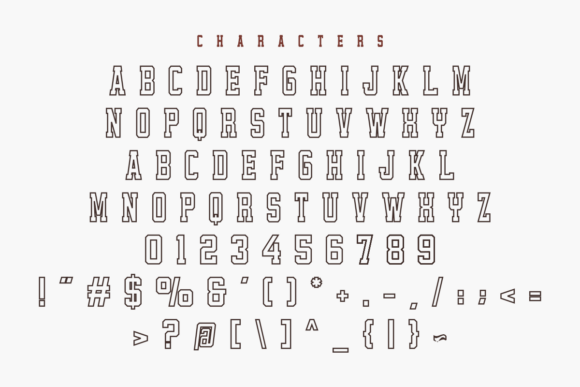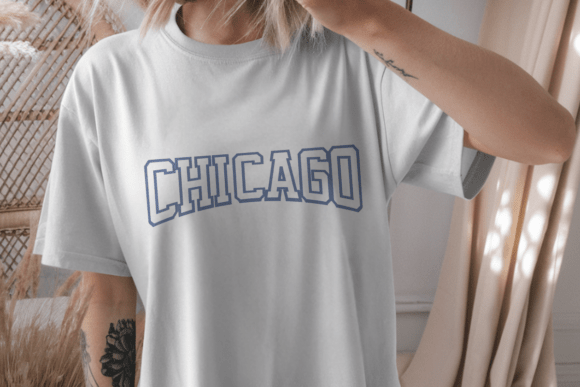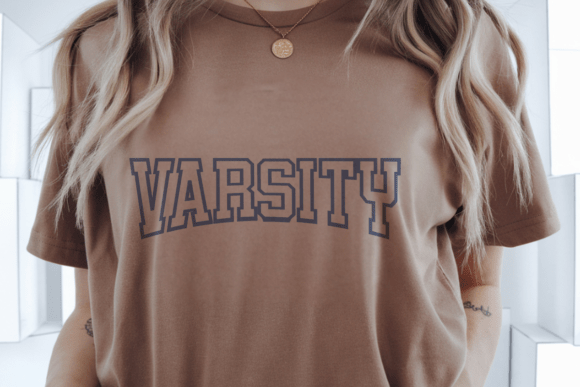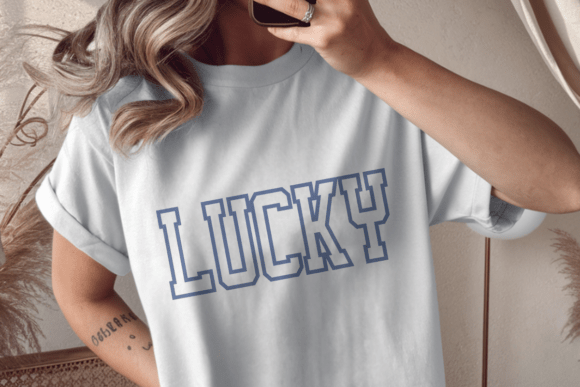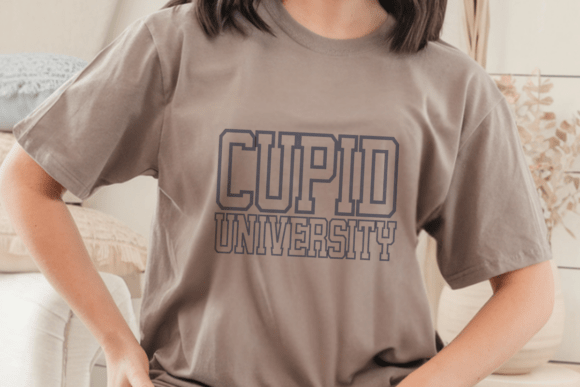
Athletic College Outline Font: Elevate Your Designs with a Classic Varsity Aesthetic
In the world of graphic design, typography plays a crucial role in conveying the tone and style of a project. For designers and crafters looking to infuse their work with a classic varsity spirit, the Athletic College Outline Font is an exceptional choice. This bold and powerful collegiate display font is specifically designed to bring a timeless university sports aesthetic to modern creative projects.
What is Athletic College Outline Font?
Athletic College Outline Font is a sturdy, blocky typeface with a clean and precise outline style. Its design is inspired by the classic varsity fonts commonly seen in university sports and team spirit wear. The font’s bold structure and clear lines make it perfect for creating high-impact designs that command attention.
Key Features of Athletic College Outline Font
- Bold and Powerful Design: Athletic College Outline Font boasts a robust and commanding presence, making it ideal for creating statement pieces in graphic design and print on demand projects.
- Classic Varsity Aesthetic: The font’s design is deeply rooted in the classic varsity style, evoking memories of university sports and team spirit.
- Outline Style: The outline style of the font adds a layer of versatility, allowing it to be used in various creative projects, from t-shirt designs to vinyl cutting.
- High Readability: The clean lines and blocky structure of Athletic College Outline Font ensure excellent readability, even on digital screens.
- Versatility: This font is not limited to fashion and apparel design; it’s also perfect for craft projects, such as vinyl cutting with Cricut or Silhouette, personalized gift tags, and school event posters.
Perfect for Graphic Designers and Print on Demand Merchants
Athletic College Outline Font is an invaluable asset for graphic designers and print on demand merchants specializing in custom apparel. Its classic varsity style and bold design make it an excellent choice for creating:
- T-Shirt Designs: Stand out with high-impact t-shirt designs that capture the spirit of university sports.
- Varsity Jackets: Bring a touch of classic varsity style to custom varsity jackets and apparel.
- Sports Jerseys: Design authentic-looking sports jerseys with a font that echoes the spirit of professional and collegiate sports.
- Spirit Wear: Create a range of spirit wear, from hoodies to hats, with a font that embodies team spirit and school pride.
Beyond Fashion: Versatility in Craft Projects
The versatility of Athletic College Outline Font extends beyond fashion and apparel design. Crafters and DIY enthusiasts can leverage this font in various projects, including:
- Vinyl Cutting: Use Athletic College Outline Font for vinyl cutting projects with Cricut or Silhouette, creating custom decals, stickers, and signs.
- Personalized Gift Tags: Add a personal touch to gifts with custom tags featuring Athletic College Outline Font.
- School Event Posters: Design eye-catching posters for school events, sports games, and team spirit nights.
Building a Professional Brand Identity
Athletic College Outline Font is not only perfect for creative projects but also for building a professional brand identity. Fitness clubs, sports teams, and educational institutions can utilize this font to create a cohesive and recognizable brand image.
With its classic varsity style and bold design, Athletic College Outline Font provides the strength and clarity needed to command attention. Whether you’re designing for digital screens or print materials, this font ensures excellent readability and a lasting impression.
| Font Name | Athletic College Outline Font |
| Author | Almairatype Studio |
Athletic College Outline Font is a powerful and versatile typeface that brings a classic varsity aesthetic to modern creative projects. Its bold design, clean lines, and outline style make it perfect for graphic designers, print on demand merchants, and crafters looking to infuse their work with a timeless university sports spirit.
From high-impact t-shirt designs to craft projects and professional brand identities, Athletic College Outline Font is an exceptional choice for anyone looking to create statement pieces that command attention. With its excellent readability and classic varsity style, this font is sure to elevate your designs and leave a lasting impression.